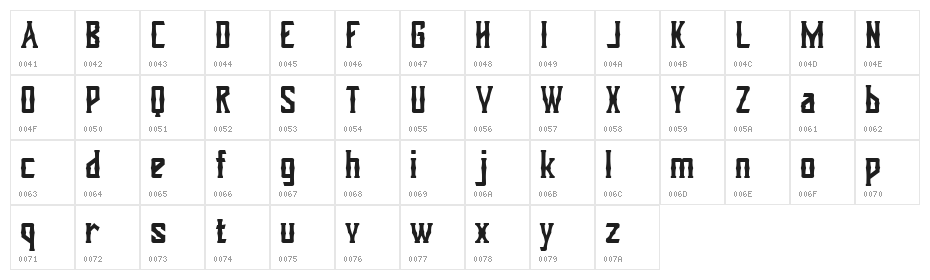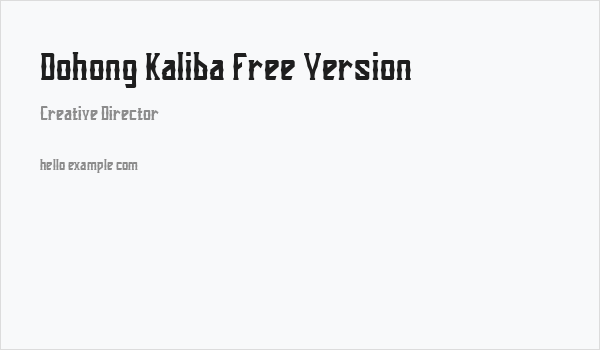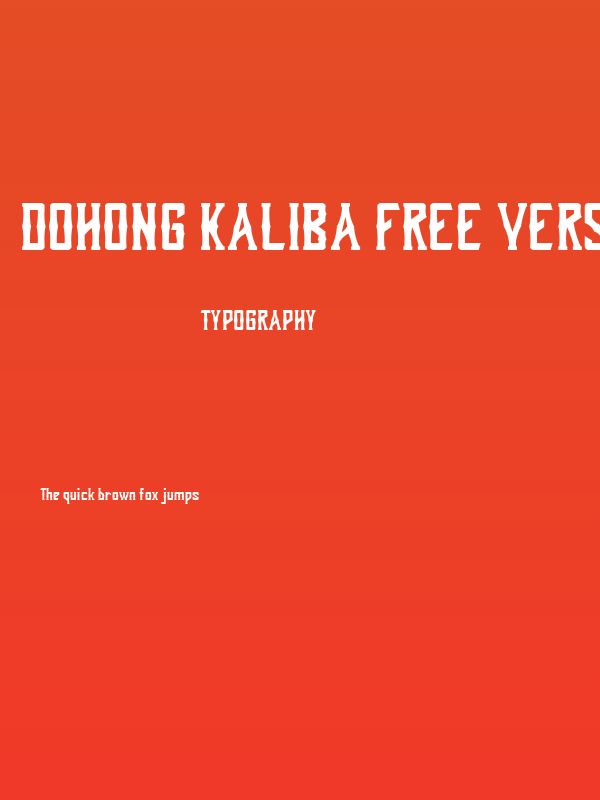
Dohong Kaliba Free Version Font
Dohong Kaliba Free Version Description
This font features a bold and striking design with a unique, angular style. The characters are crafted with sharp edges and a distinct geometric flair, giving them a modern and edgy appearance. The uppercase and lowercase letters maintain a consistent height, while the numbers and special characters complement the overall aesthetic. The font's structure is robust, making it suitable for attention-grabbing headlines and titles. Its boldness and distinctive style make it stand out, while the consistent character width ensures readability.
| Proposed Projects | Ideal for branding, posters, and any project requiring a strong visual impact. |